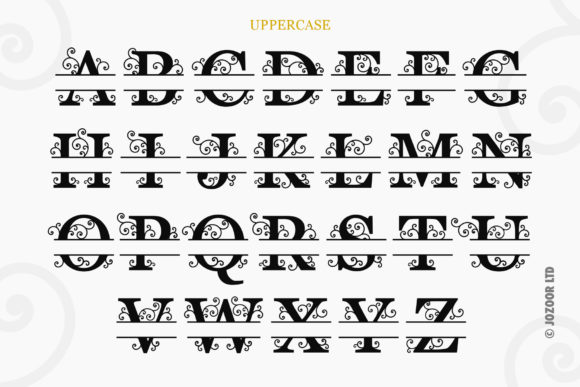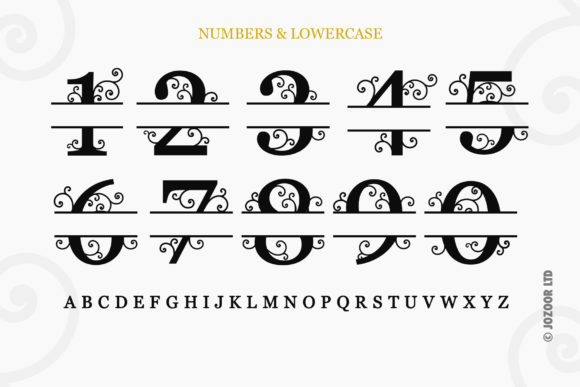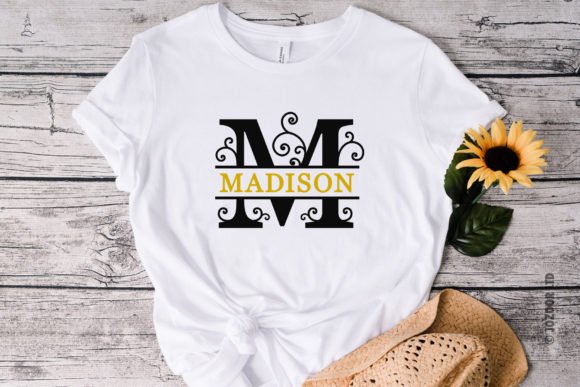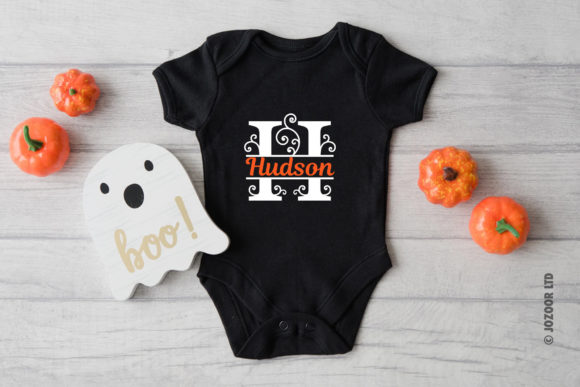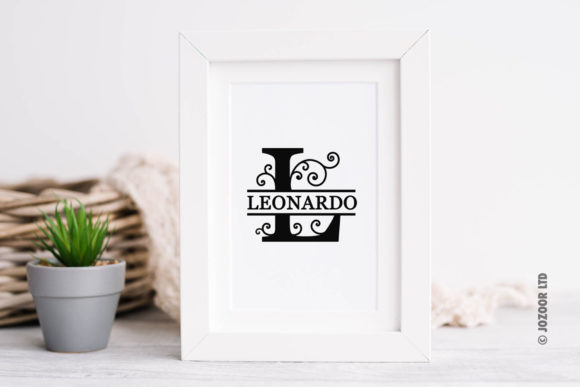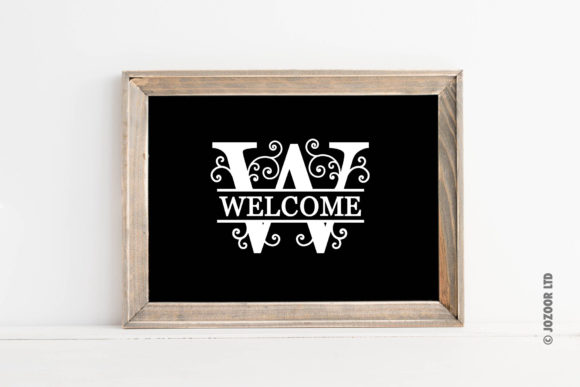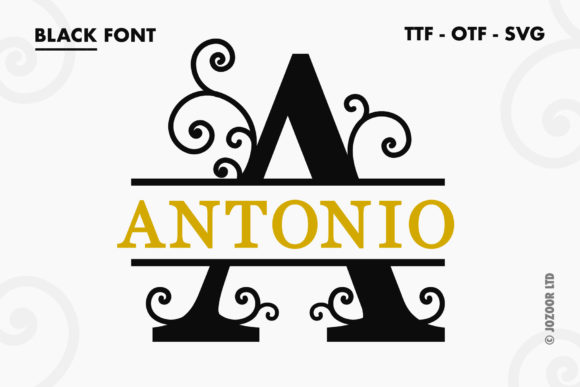
Introducing Antonio Split Monogram Font: Elevate Your Designs with a Touch of Elegance
Are you on the hunt for a font that exudes charm and sophistication? Look no further than the Antonio Split Monogram Font. This delightful decorative font is sure to capture your heart with its authentic feel and versatility. In this article, we’ll dive into the world of Antonio Split Monogram Font, exploring its features, uses, and benefits for designers and crafters.
What is Antonio Split Monogram Font?
Antonio Split Monogram Font is a beautifully crafted decorative font, designed to add a touch of elegance to your designs. Its unique split monogram style gives it a distinctive look that’s both modern and classic. The font’s authentic feel makes it perfect for creating a wide range of projects, from wedding invitations and stationary art to social media posts and greeting cards.
Key Features of Antonio Split Monogram Font
- Unique Split Monogram Style: The font’s split monogram design makes it stand out from other decorative fonts.
- Authentic Feel: The font’s classic look and feel give it an authentic touch that’s perfect for creating traditional and modern designs.
- Versatile: Use it for a wide range of projects, including wedding invitations, stationary art, social media posts, and greeting cards.
- Elegant and Sophisticated: The font’s elegant design makes it perfect for creating sophisticated and eye-catching designs.
Uses of Antonio Split Monogram Font
Antonio Split Monogram Font is an incredibly versatile font that can be used for a variety of projects. Here are some ideas to get you started:
- Wedding Invitations: Create stunning wedding invitations that set the tone for the big day.
- Stationary Art: Design beautiful stationary art, including notecards, journals, and planners.
- Social Media Posts: Add a touch of elegance to your social media posts and make them stand out.
- Greeting Cards: Create cute and personalized greeting cards for special occasions.
Benefits of Using Antonio Split Monogram Font
So, why choose Antonio Split Monogram Font for your designs? Here are some benefits:
- Easy to Read: The font is clear and easy to read, making it perfect for body text and headings.
- Scalable: The font is highly scalable, ensuring it looks great in any size.
- Customizable: Use the font to create custom designs that reflect your brand’s personality.
- Time-Saving: The font saves you time and effort, allowing you to focus on other creative aspects of your project.
Tips for Using Antonio Split Monogram Font
To get the most out of Antonio Split Monogram Font, here are some tips:
- Pair it with Other Fonts: Experiment with pairing the font with other fonts to create a unique look.
- Use it for Headings: Use the font for headings and titles to add a touch of elegance.
- Experiment with Colors: Try out different colors to find the perfect match for your design.
- Keep it Simple: Don’t overcomplicate your design – keep it simple and elegant.
Antonio Split Monogram Font is a stunning decorative font that’s perfect for designers and crafters looking to add a touch of elegance to their designs. Its unique split monogram style, authentic feel, and versatility make it an excellent choice for a wide range of projects. With its ease of use, scalability, and customizability, this font is sure to become a favorite in your design arsenal.